Great graphic design is powered by great font selection. But picking great fonts is a challenge most people. Luckily, Canva has made adding great fonts to your designs much easier. In this tutorial, our team of design experts will cover the best death metal fonts in Canva.
What is a Death Metal Font?
Death metal style fonts are fonts that are commonly used in the metal music genre and have a strong, dark, and intense aesthetic. Some characteristics of death metal style fonts include:
- Sharp and angular: Death metal style fonts often feature sharp and angular lines, giving them a harsh and aggressive look.
- Distorted and rugged: These fonts can have a distorted or rugged appearance, with jagged edges and uneven lines that suggest violence and destruction.
- Gothic or medieval-inspired: Death metal style fonts can have a gothic or medieval-inspired look, with elements such as pointed arches, ornate flourishes, and embellished letters.
- All-caps: These fonts are often presented in all-capital letters, which gives them a commanding and powerful presence.
- Bold and heavy: Death metal style fonts are typically designed to be bold and heavy, with thick strokes and strong contrast between the letters and the background.
- Limited legibility: Due to their highly stylized and decorative nature, some death metal style fonts may be difficult to read at smaller sizes or in certain contexts.
Best Death Metal Fonts in Canva
1. Rubik Beastly
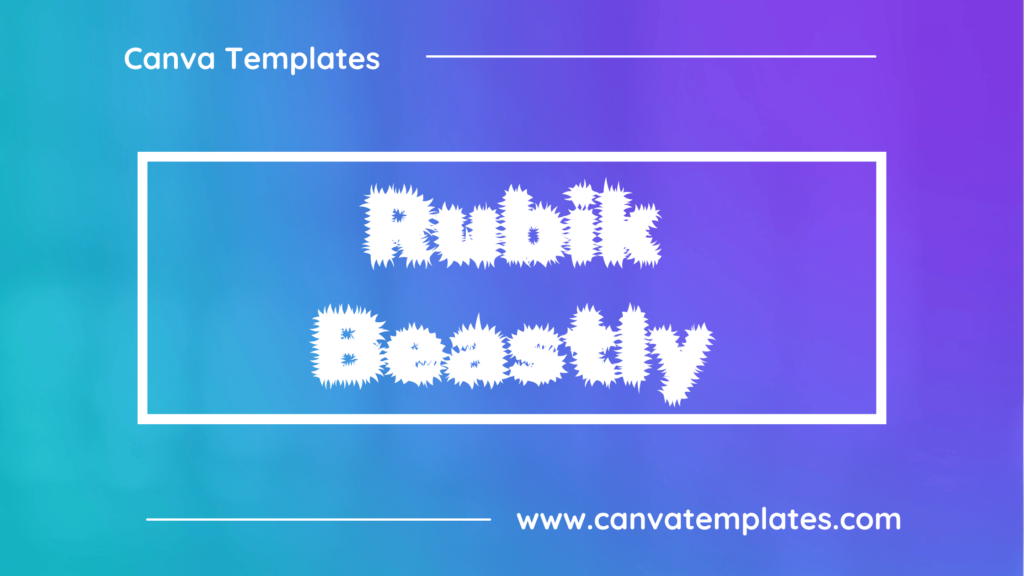
Rubik Beastly is a display font with a bold weight and a unique design, featuring irregular shapes and sharp angles. Its edgy and dynamic feel makes it a great choice for designs that require a bold and unconventional touch.
2. Mons
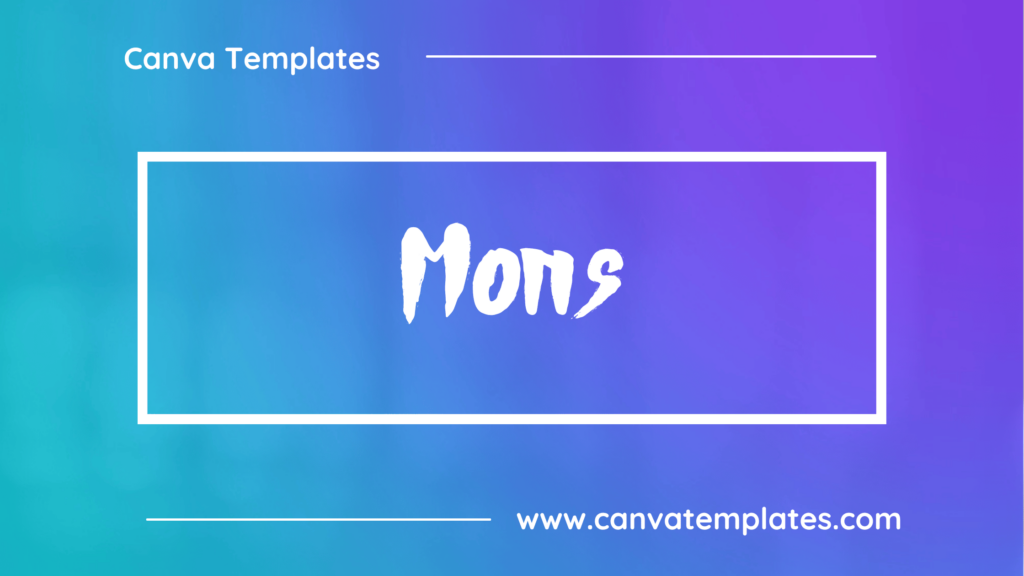
Mons is a serif font with a clean and elegant design, featuring thin strokes and subtle curves. Its classic appearance and legibility make it a popular choice for editorial design and branding.
3. Neultica Dirty
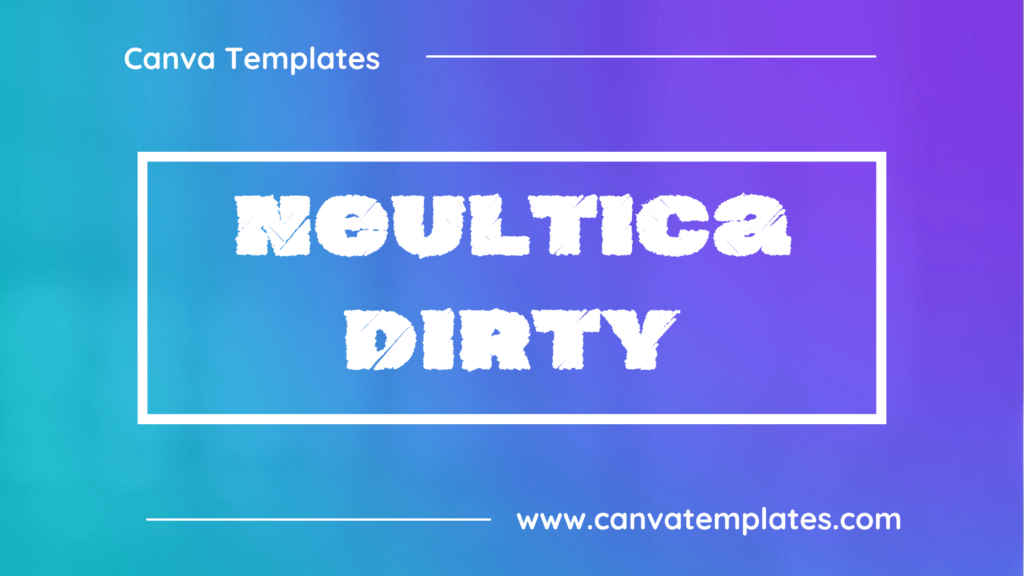
Neultica Dirty is a grunge-style font with a bold weight and a distressed appearance, featuring irregular lines and a textured surface. Its rough and edgy feel makes it ideal for designs that require a rugged or worn-out look.
4. Squartiqa Strike
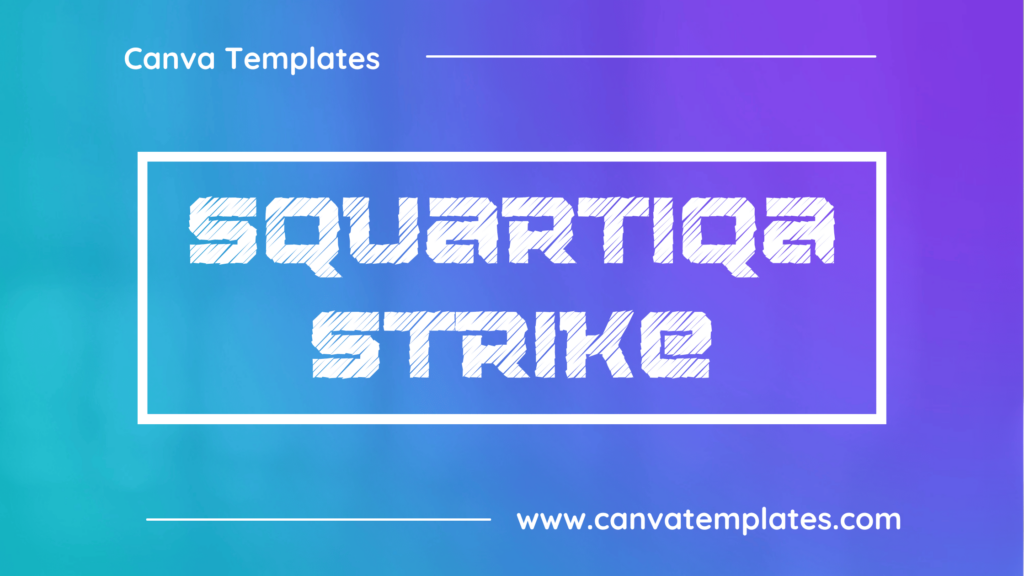
Squartiqa Strike is a display font with a bold weight and a unique design, featuring irregular shapes and angular lines. Its edgy and dynamic feel makes it a great choice for designs that require a bold and unconventional touch.
5. Abys
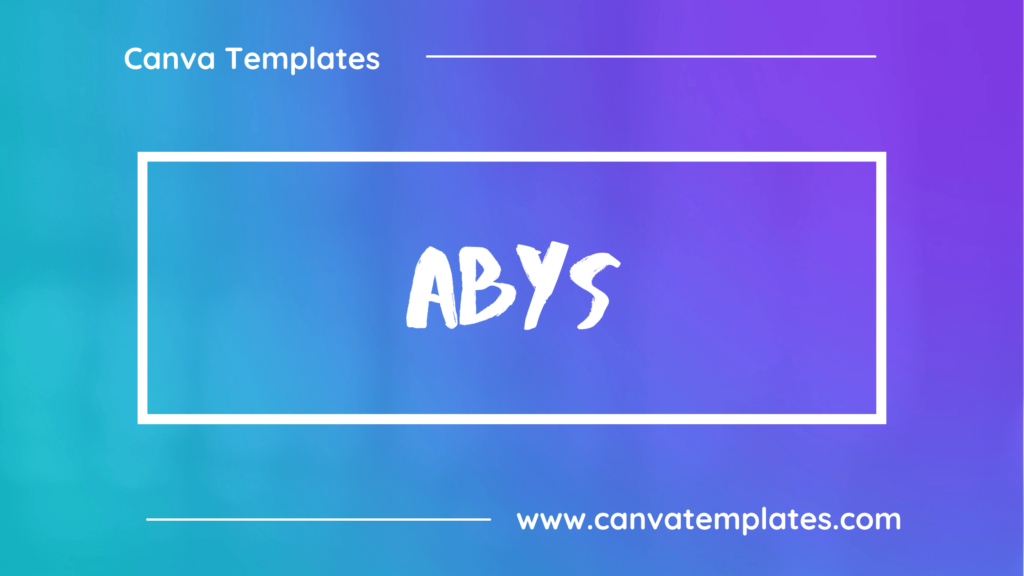
Abys is a display font with a bold weight and a futuristic design, featuring clean lines and sharp angles. Its modern and sleek appearance makes it a popular choice for branding and digital design.
6. Villagers Grunge
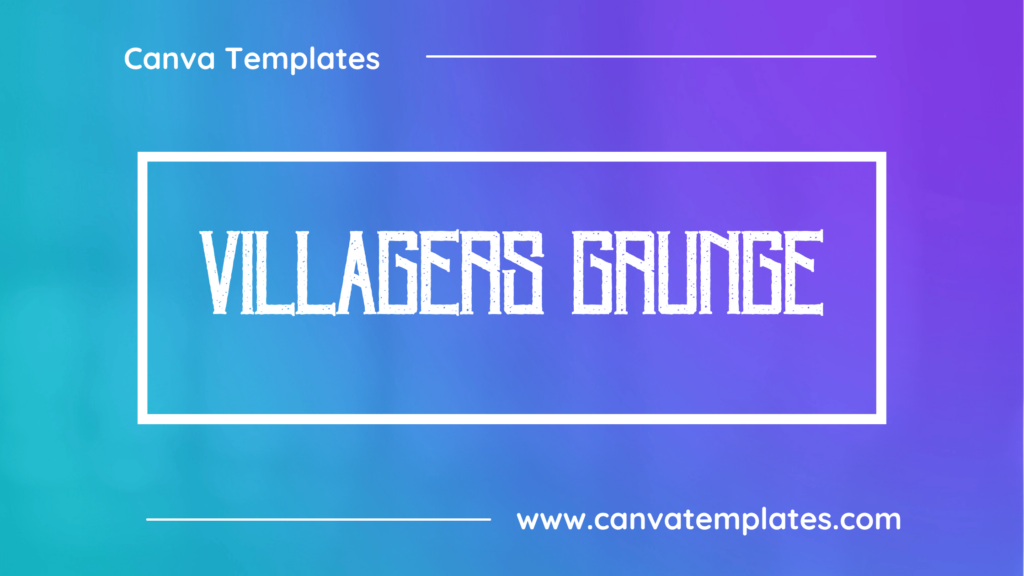
Villagers Grunge is a grunge-style font with a bold weight and a textured appearance, resembling old and weathered lettering. Its unique and rustic feel makes it ideal for designs that require a vintage or artisanal touch.
7. Greenth Grunge
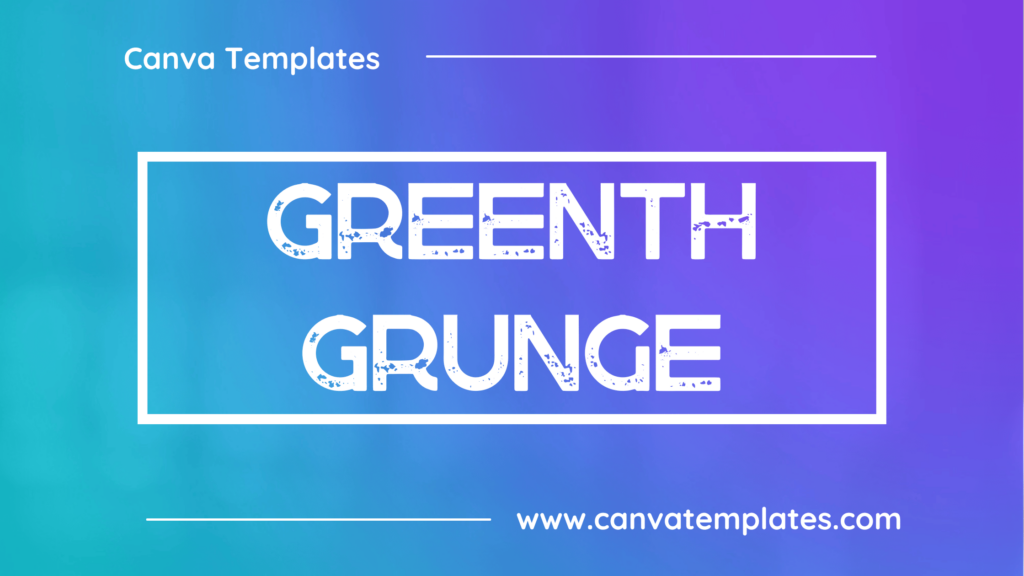
Greenth Grunge is a grunge-style font with a bold weight and a distressed appearance, featuring irregular lines and rough edges. Its vintage feel makes it ideal for designs that require a rugged or worn-out look.
8. Lava Pro Grunge
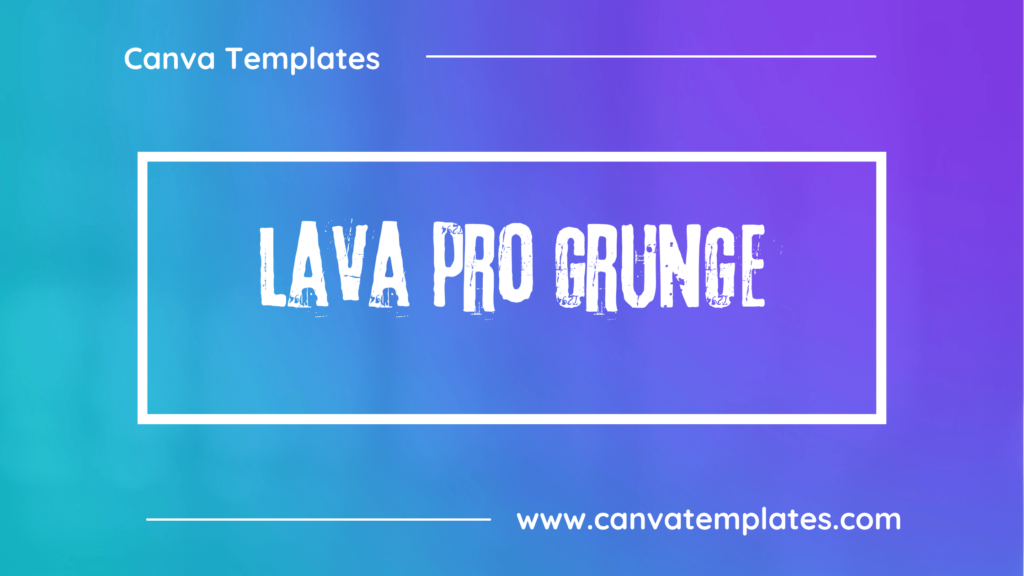
Lava Pro Grunge is a grunge-style font with a bold weight and a textured appearance, resembling lava or molten metal. Its rugged and edgy feel makes it a great choice for designs that require a bold and adventurous touch.
9. Permanent Marker
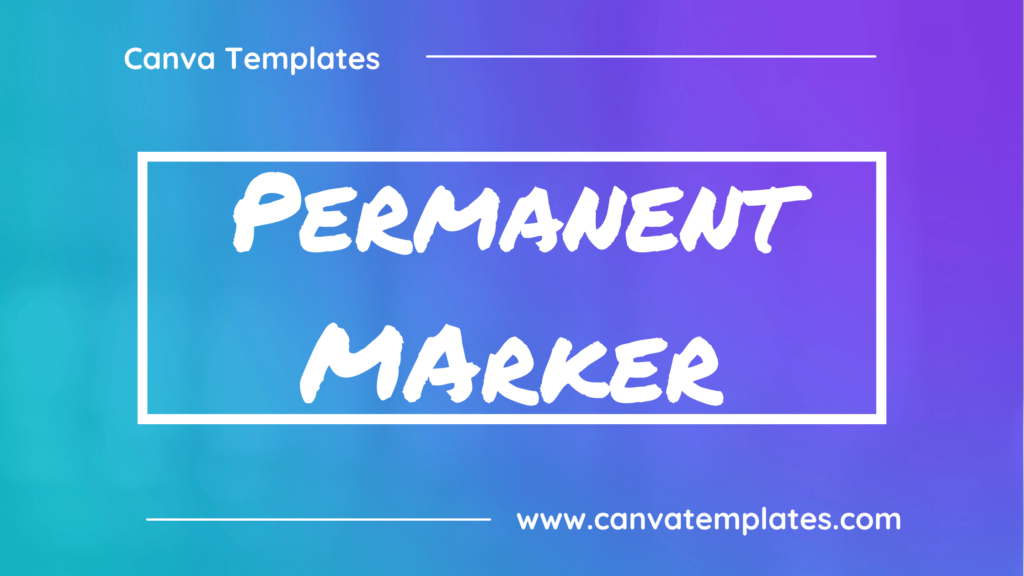
Permanent Marker is a handwriting-style font with a bold weight and a casual appearance, resembling a marker or pen stroke. Its informal and playful feel makes it a great choice for designs that require a personal or friendly touch.
10. Lacquer
Lacquer is a display font with a unique and sophisticated design, featuring elegant curves and thin strokes. Its versatility and legibility make it a popular choice for branding and editorial design.
Conclusion